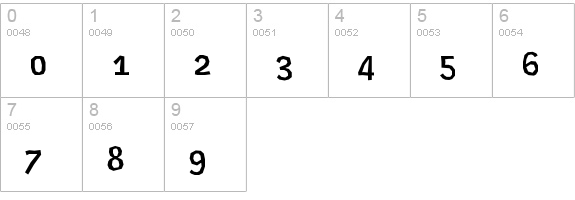
The Xerxes font is a modern and versatile typeface that exudes elegance and sophistication. Its sleek and clean lines make it perfect for a wide range of design projects, from branding to editorial design. With its unique style and timeless appeal, Xerxes is sure to make a lasting impression on any audience. The best part? Xerxes font is available for free download at FontsMarket.com. This means that you can easily access this stunning typeface and use it in your projects without any cost. Don't miss out on the opportunity to enhance your designs with the beauty and versatility of the Xerxes font. Download it today and elevate your design game to the next level.